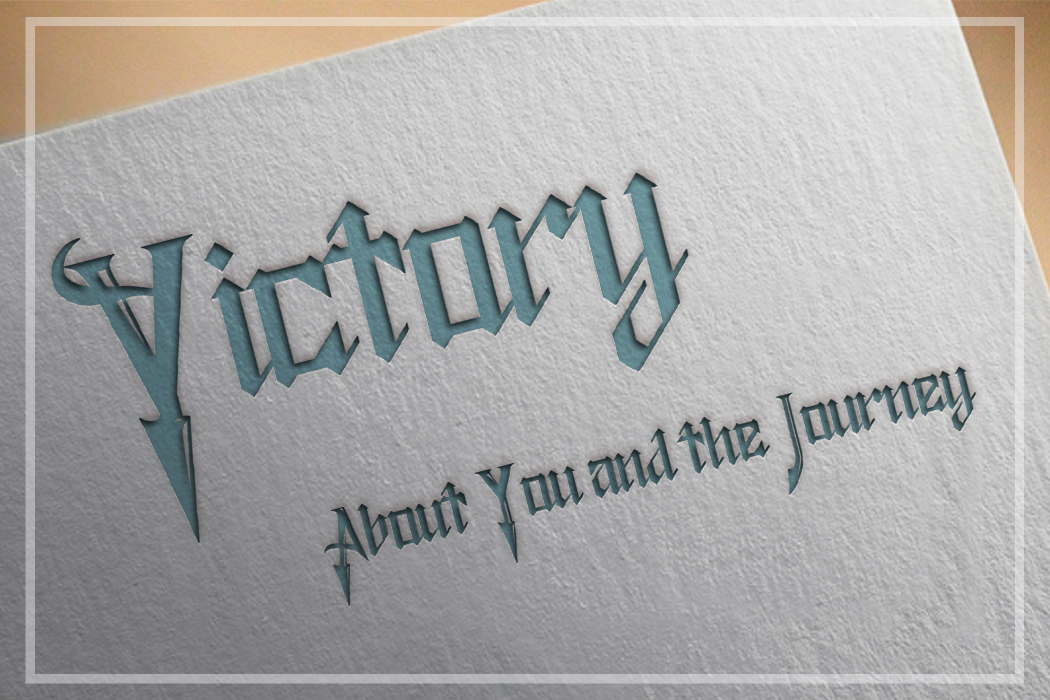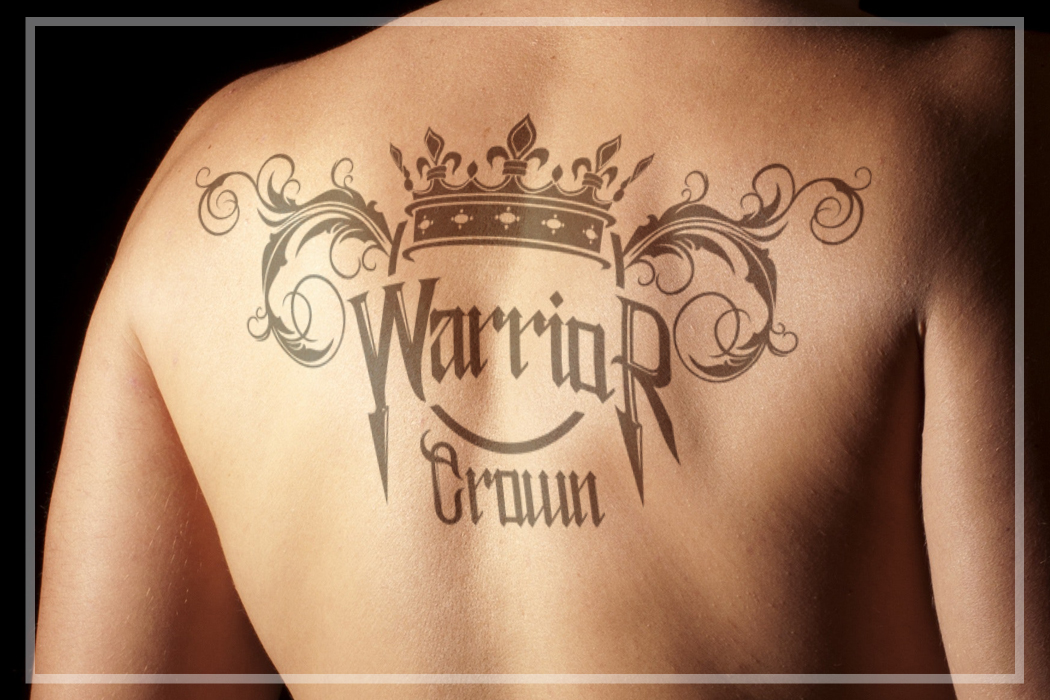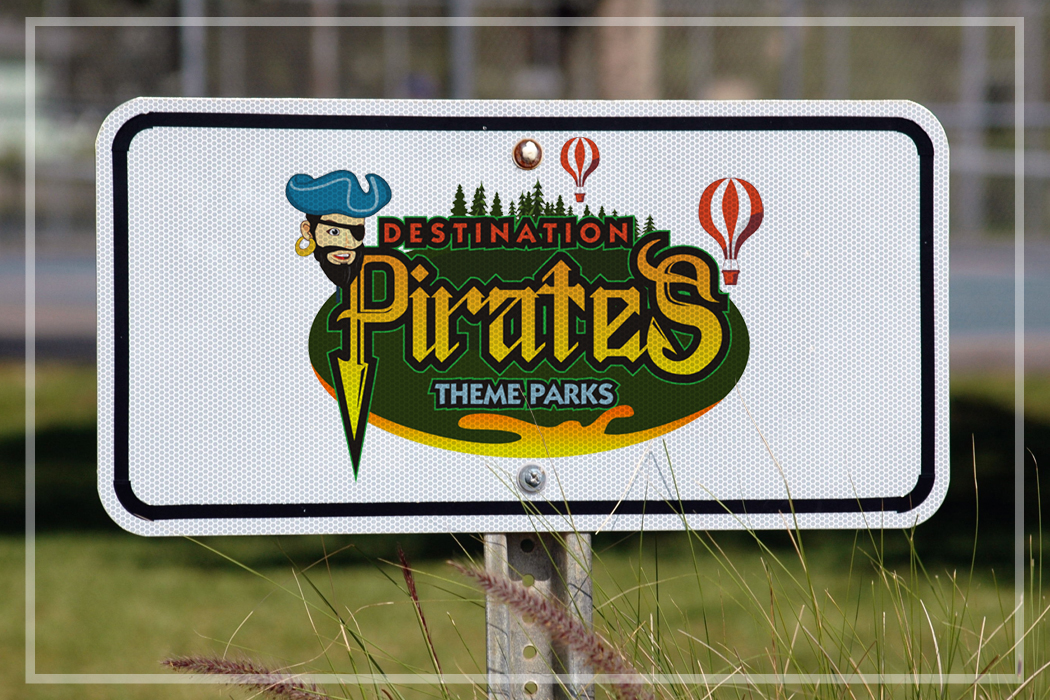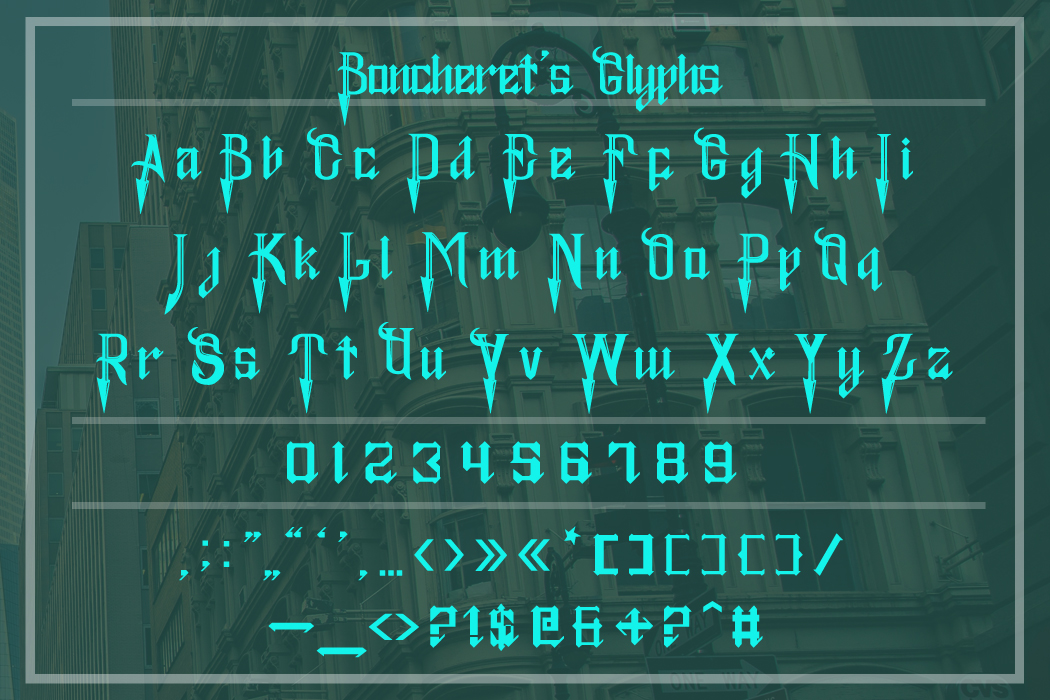
Bonchereth Font
About Bonchereth Typeface
Bonchereth is a nice vintage Typeface.Unique vintage & ornamental style custom font. Great for your vintage themed designs, logo, headline, letterheads, etc.